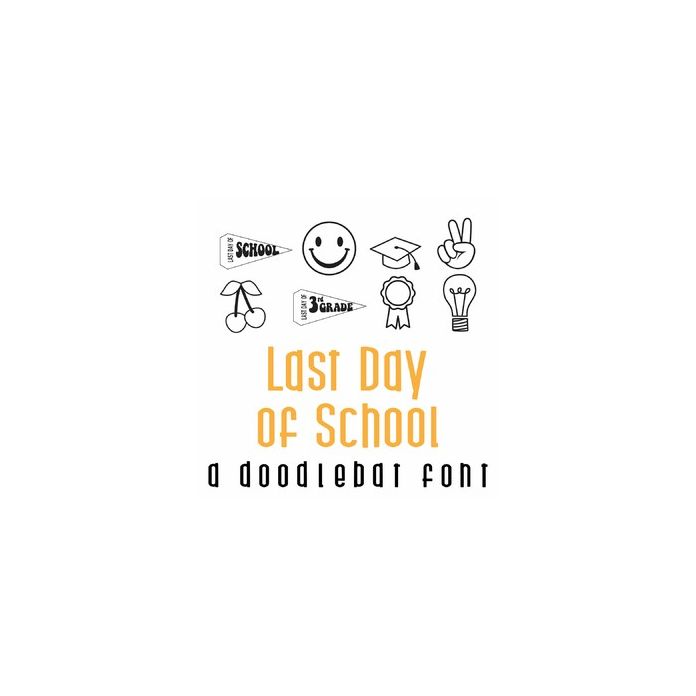
This fun doodlebat font features 36 pennants, last day of school images, and stickers. Perfect for cards, gifts, decor, crafts, scrap book pages, planner stickers and more!